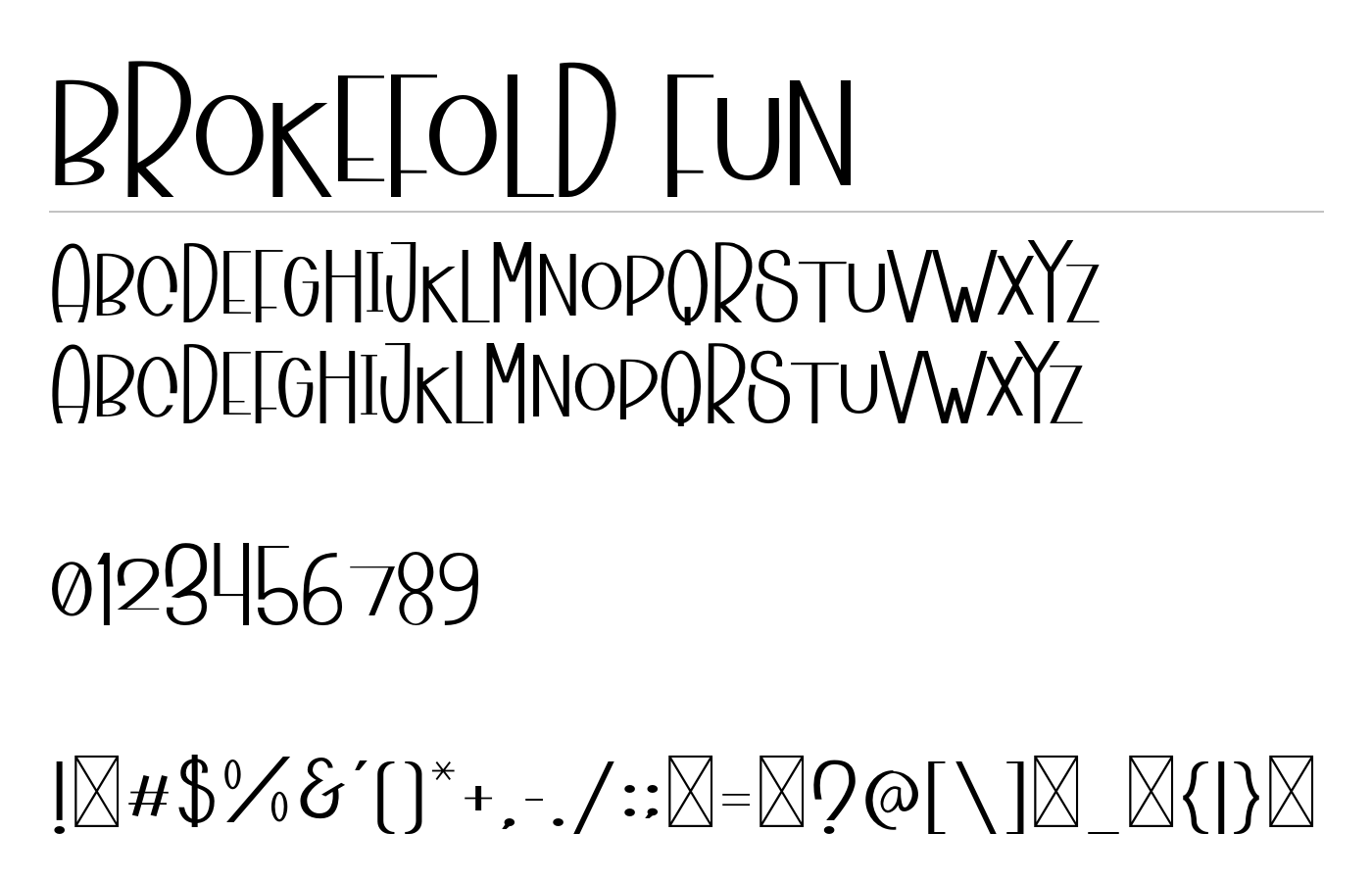
Brokefold Fun is a quirky, thin sans serif font with a tall, narrow structure that gives it a unique, playful character. Its irregular letter shapes and subtle variations add a hand-drawn, artistic feel, making it perfect for creative projects, children’s materials, and informal branding that seeks a fun, whimsical vibe. This font works best in headlines and display uses where its distinctive style can stand out and add personality.
Brokefold Fun Font
About Brokefold Fun Font
| Font family | Brokefold Fun Font |
| Designer | Doli Anggia Harahap |